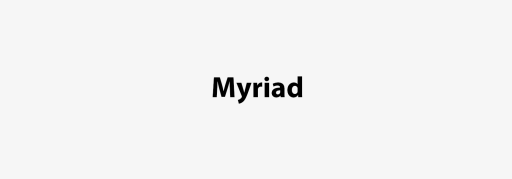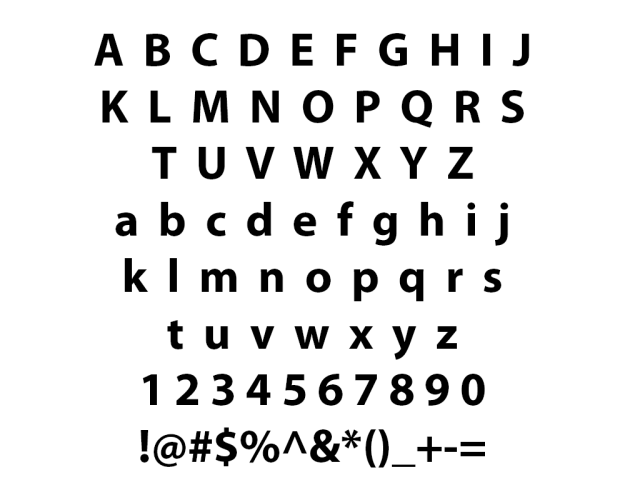
Myriad Font
Myriad is a clean humanist sans-serif font with warm style. Moreover, Robert Slimbach and Carol Twombly created it for Adobe in 1992. Additionally, Apple used this font as their main typeface from 2002 to 2017. The font has open shapes that are easy to read. Therefore, it works great for both text and display use.
This font comes in many weights from light to black. Furthermore, you get condensed and extended widths too. The family includes Greek and Cyrillic letters for global projects. Consequently, brands like Apple and LinkedIn chose it for their identity. As a result, it became one of the most popular fonts worldwide.
Myriad Font stays legible at small sizes, which makes it a strong choice for navigation, buttons and dashboards in web design and app interfaces.
Clean sans serifs like Myriad Font are the default language of SaaS, fintech and product branding.
What is Myriad Font good for?
Myriad Font is a Sans Serif Fonts typeface tagged Branding, Clean, Condensed, Humanist. It works well for headlines, logos, posters, social media graphics and branding projects that need a distinctive sans serif fonts look.